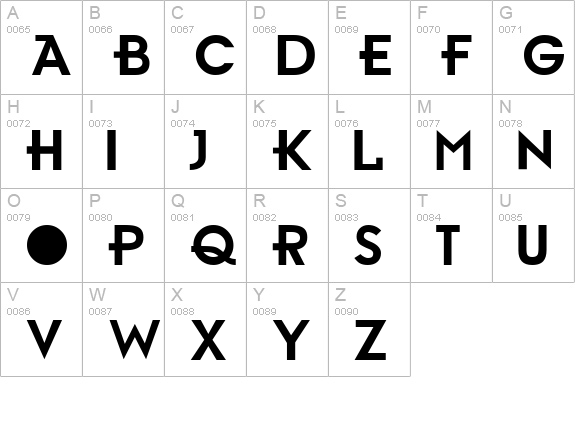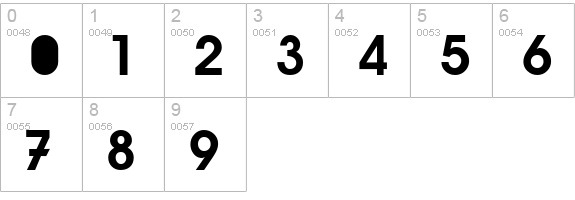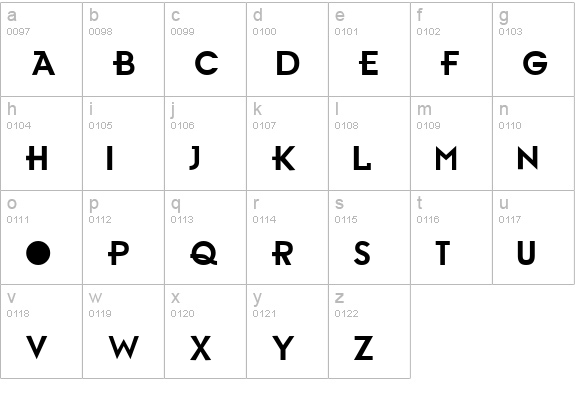
Grambien Font Details
Introducing Grambien font, a versatile and elegant typeface that effortlessly combines modern aesthetics with a touch of classic sophistication. With its sleek lines and graceful curves, Grambien is perfect for a wide range of design projects, from branding to editorial layouts and everything in between. What sets Grambien apart is not just its timeless design, but also the fact that it is available for free download at FontsMarket.com. This means you can add this beautiful font to your collection without any cost, making it a valuable asset for both professional designers and hobbyists alike. Whether you're looking to elevate your next project with a touch of refined elegance or simply expand your font library with a high-quality typeface, Grambien is the perfect choice. Download it today and experience the beauty and versatility of this exceptional font firsthand.